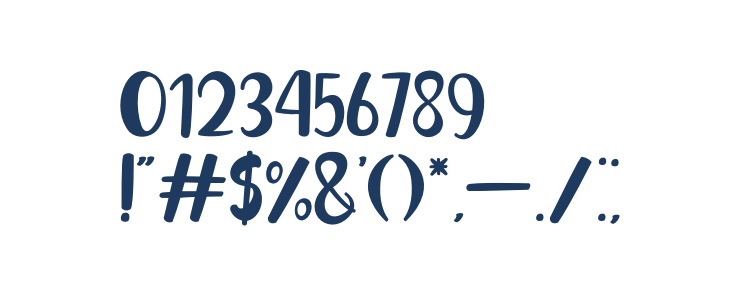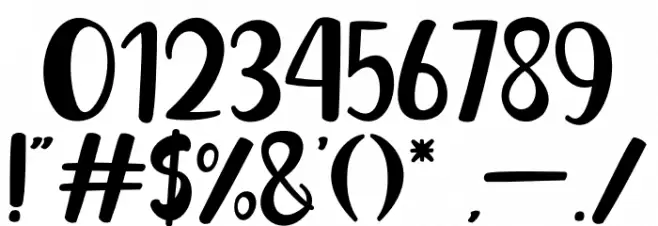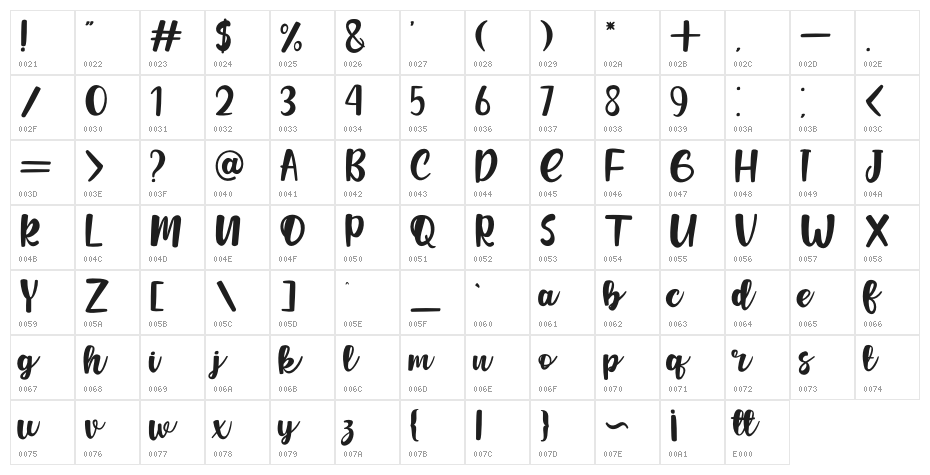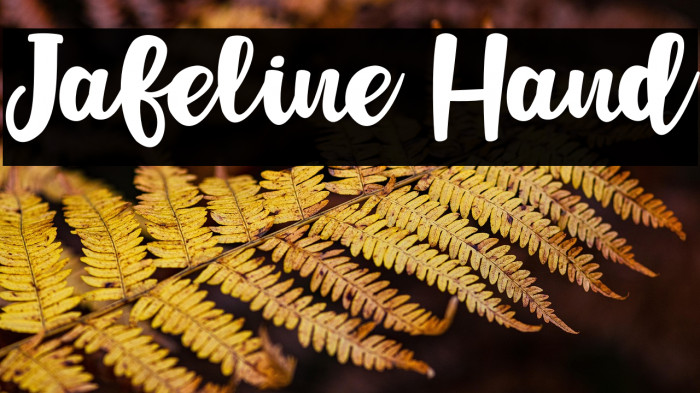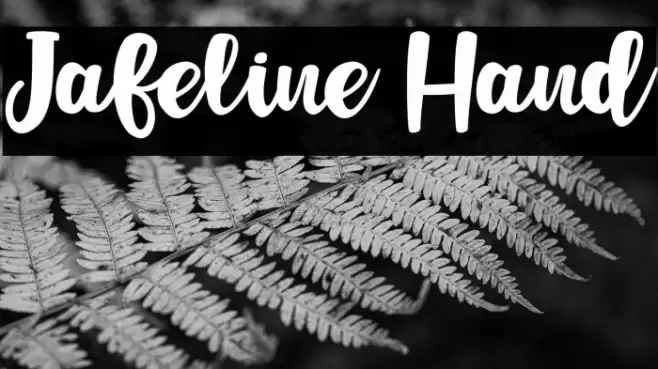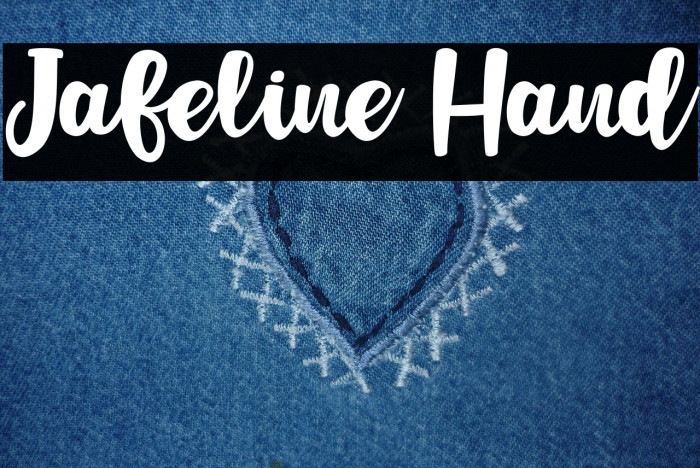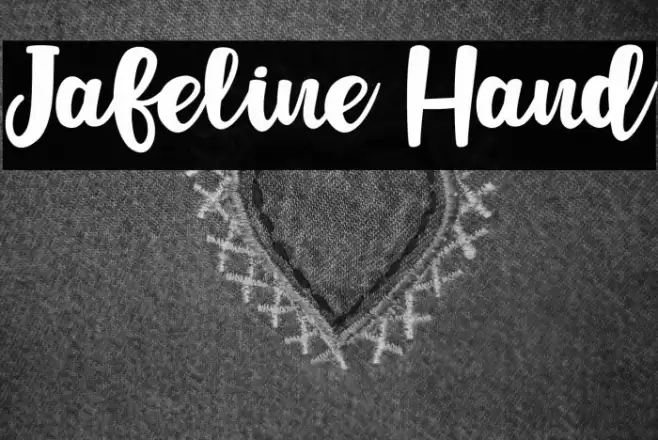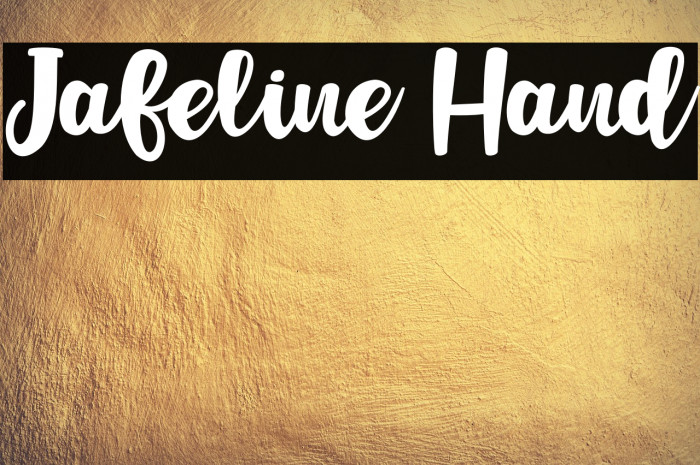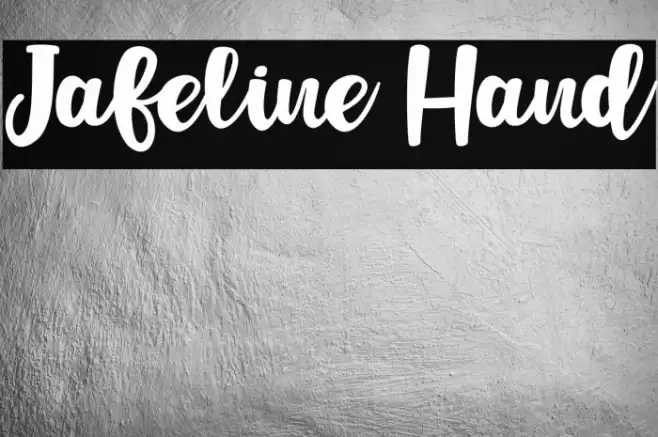
Jafeline Hand Font
Jafeline Hand Description
This font features a lively and flowing script style, characterized by its bold and smooth curves. The uppercase letters exhibit a playful yet elegant design, with consistent stroke widths that give a sense of uniformity and balance. The lowercase letters maintain the same fluidity, with some characters like 'g' and 'y' having distinctive loops that add to the font's charm. The numerals are clear and easy to read, complementing the overall style. Special characters are well-integrated, maintaining the font's cohesive look. This font is ideal for projects that require a personal touch, such as invitations, greeting cards, or branding materials.
| Proposed Projects | Ideal for invitations, greeting cards, branding, and decorative signage. |